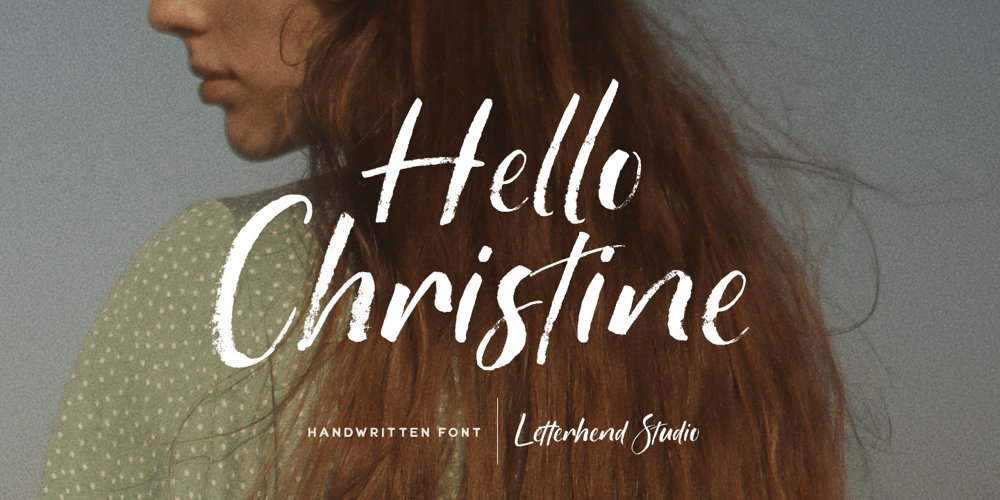
Hello Christine Font Family was designed by Hendry Juanda and published by Letterhend. Hello Christine contains 1 styles and family package options. Introducing, Hello Christine – a textured brush typeface. This type of font perfectly made to be applied especially in headlines which is need a standout font, and the other various formal forms such as invitations, labels, logos, magazines, books, greeting / wedding cards, packaging, fashion, make up, stationery, novels, labels or any type of advertising purpose.Features : Lowercase & uppercase numbers and punctuation multilingual PUA encoded We highly recommend using a program that supports OpenType features and Glyphs panels like many of Adobe apps and Corel Draw, so you can see and access all Glyph variations.